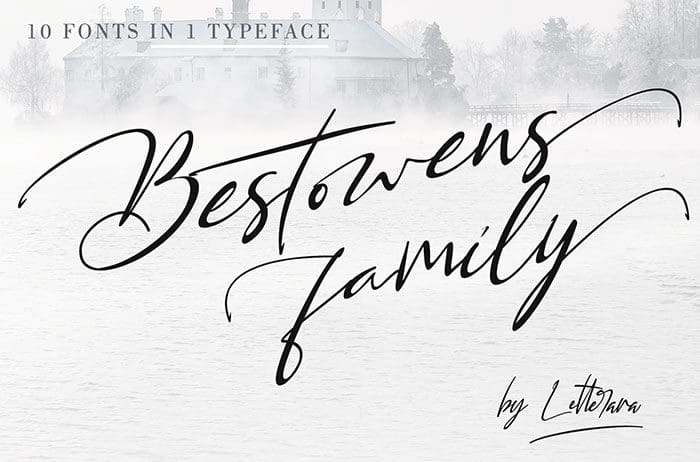
Bestowens Family Handwritten Font
Bestowens Family handwritten font. This font Elegant, Sweet, innocent, light and charming, this one-of-a-kind typeface will add a unique charm to any design project. With built-in Open type features, this script comes to life as if you are writing it yourself. Created this font by Thomas Aradea. You can also search more freeĀ Fonts. Thanks!